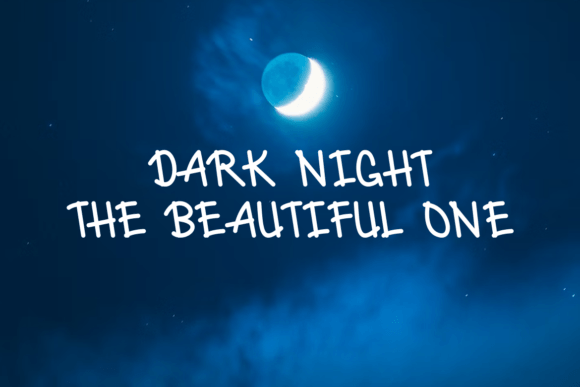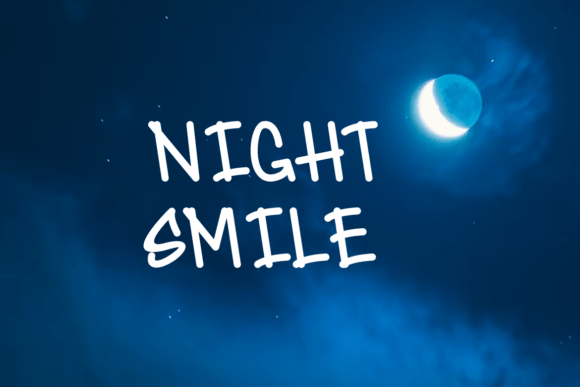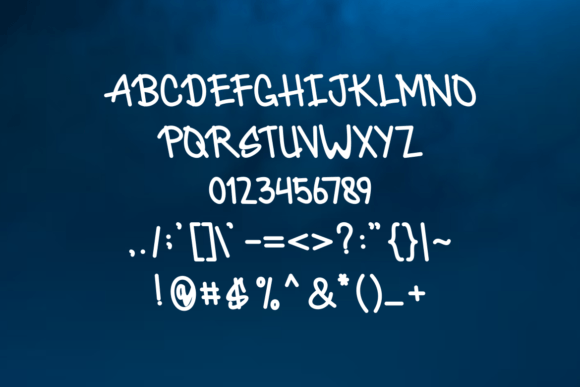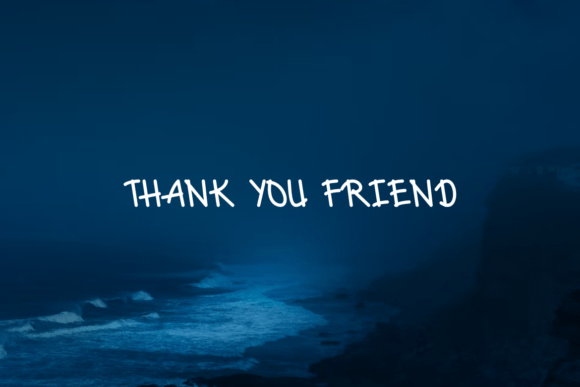
Discover the Perfect Brush Font for Your Next Design Project
Have you ever been stuck on a design project, scrolling through font options, and just can’t seem to find the right fit? You know, that moment when you see a beautiful design and wonder, “How did they do that?” That’s exactly what happened to me when I stumbled upon the Auach Ghelap Font. Its sleek, monoline brush strokes immediately caught my attention, and I knew I had to learn more.
The Auach Ghelap Font is a versatile, modern brush font that’s perfect for designers looking to add a touch of elegance to their projects. With its clean, continuous lines, this font is ideal for creating a stylish and sophisticated look. Whether you’re working on a branding project, creating a social media graphic, or designing a website, the Auach Ghelap Font is a valuable addition to your design toolkit.
Auach Ghelap Font Key Features
- Character Set: This font features a comprehensive character set, including Latin, Cyrillic, and Devanagari scripts, making it suitable for diverse language requirements.
- Unique Characteristics: The font’s distinctive Ghelap style, with its unique combination of rounded and angular shapes, adds a touch of elegance and sophistication to any text-based design.
- Font Weight and Style: The Auach Ghelap Font offers a range of font weights, from light to bold, and various styles, including regular, italic, and bold italic, providing flexibility for various design applications.
- Multi-Lingual Support: The font is designed to support multiple languages, including English, Hindi, Marathi, and other Indian languages, making it an ideal choice for global branding and marketing initiatives.
Auach Ghelap Font Review
Overall, I was excited to dive into the Auach Ghelap font, and I must say, it has some great qualities that caught my attention. ✨ The font’s unique, handwritten feel immediately drew me in, and I loved the way it added a personal touch to my designs. ✨ The font’s versatility also impressed me, as it worked well in a range of contexts, from headings to body text.
- Unique, handwritten feel that adds a personal touch
- Versatility in a range of design contexts
- Good legibility, even at smaller font sizes
However, there are some limitations to consider. ⚠️ The font may not be suitable for all types of projects, particularly those that require a more formal or professional tone. ⚠️ Additionally, the font’s unique feel can sometimes be overwhelming, and it may not be the best choice for projects that require a more subtle design approach.
Overall, I would give the Auach Ghelap font 4 out of 5 stars. While it has some limitations, its unique feel and versatility make it a great choice for designers looking to add some personality to their work. With a little caution and consideration, this font can be a valuable addition to any design arsenal.
Auach Ghelap Font is a unique and elegant script font that is perfect for creative projects, such as:
- Brand logos and identity design
- Artistic typography and lettering
Remember to use Auach Ghelap Font sparingly and in context to avoid overwhelming your design.